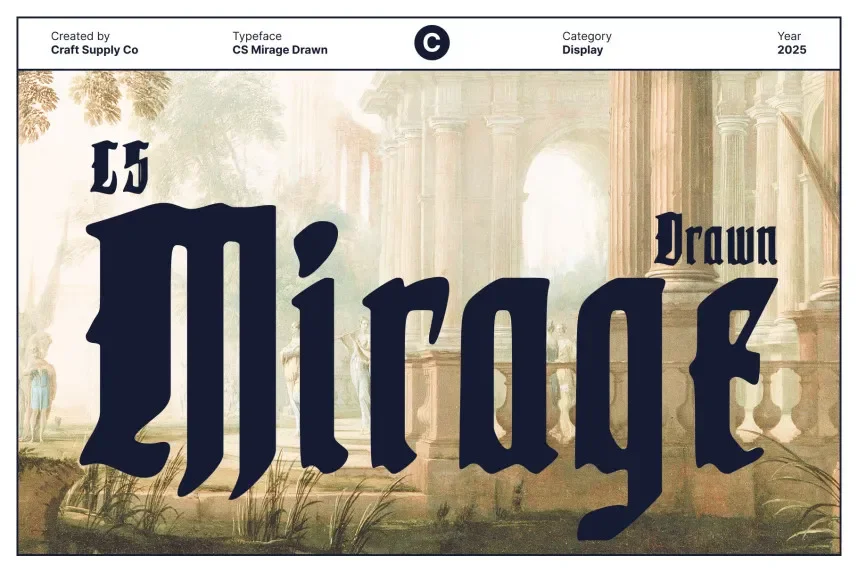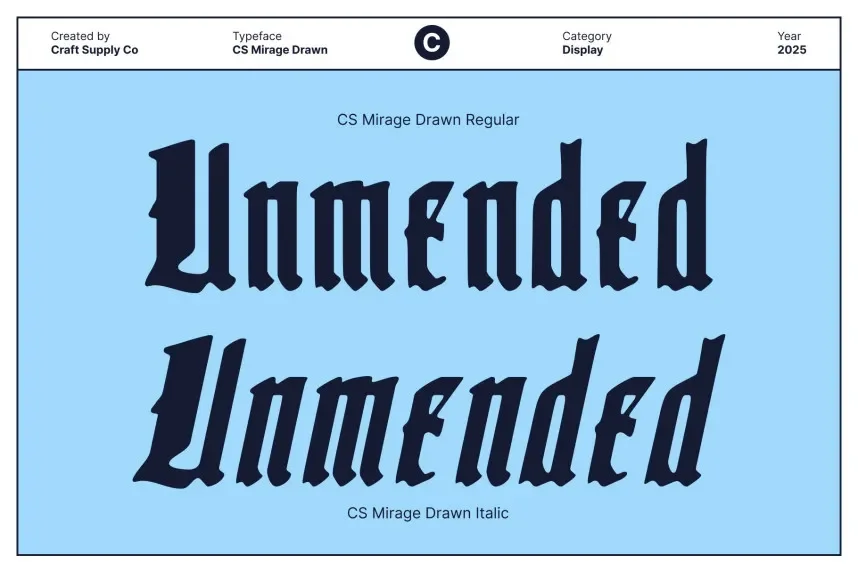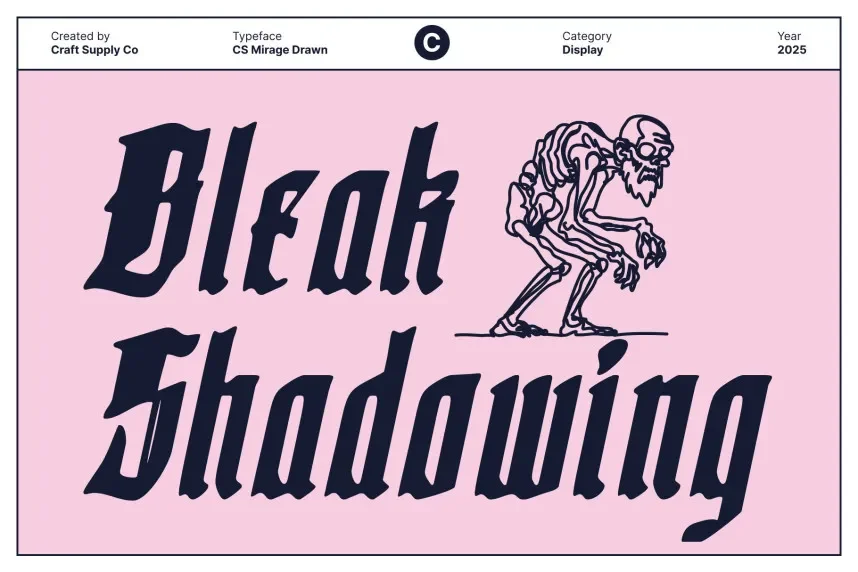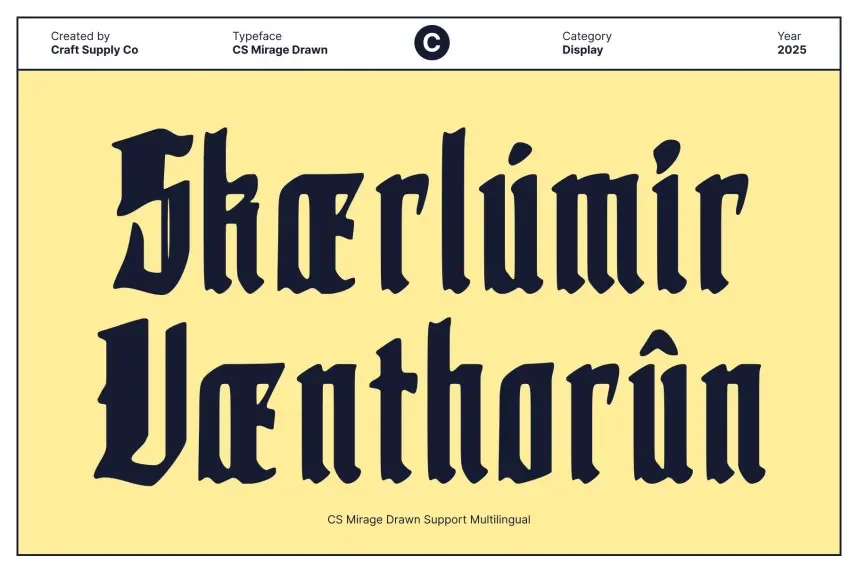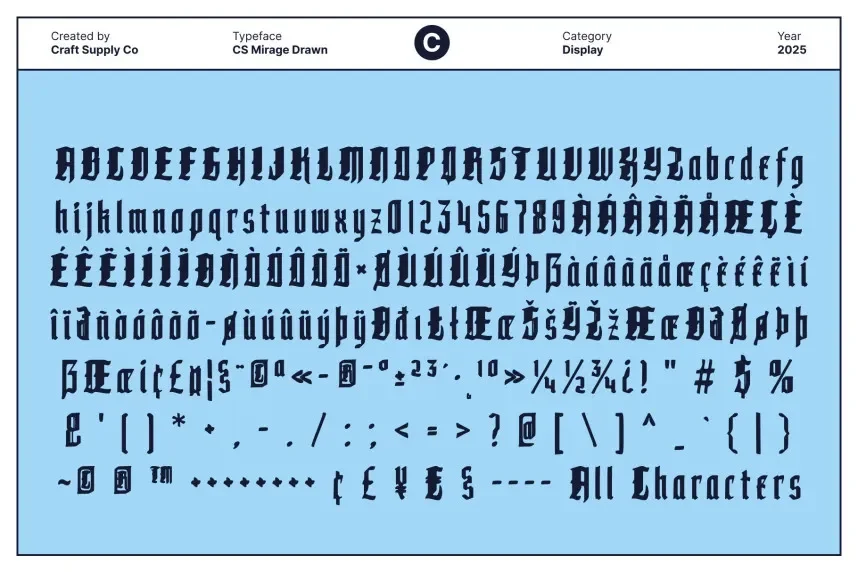
CS Mirage Drawn Font addresses the need for distinctive, memorable typography that stands out in creative projects. It’s perfect for designs that require a unique, artistic style while maintaining readability.
CS Mirage is a display font with bold, irregular letterforms and distinct textures, giving it an edgy, artistic vibe. Its unique design works well in larger text and creative branding projects.